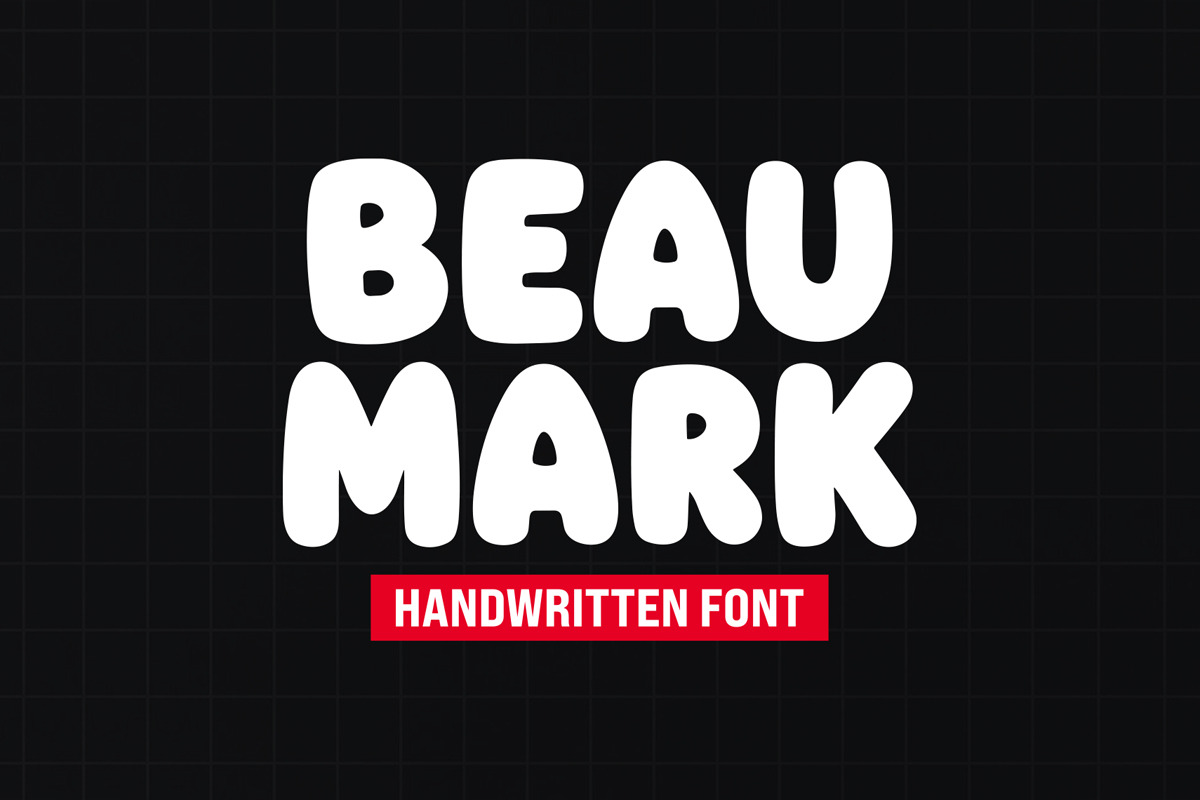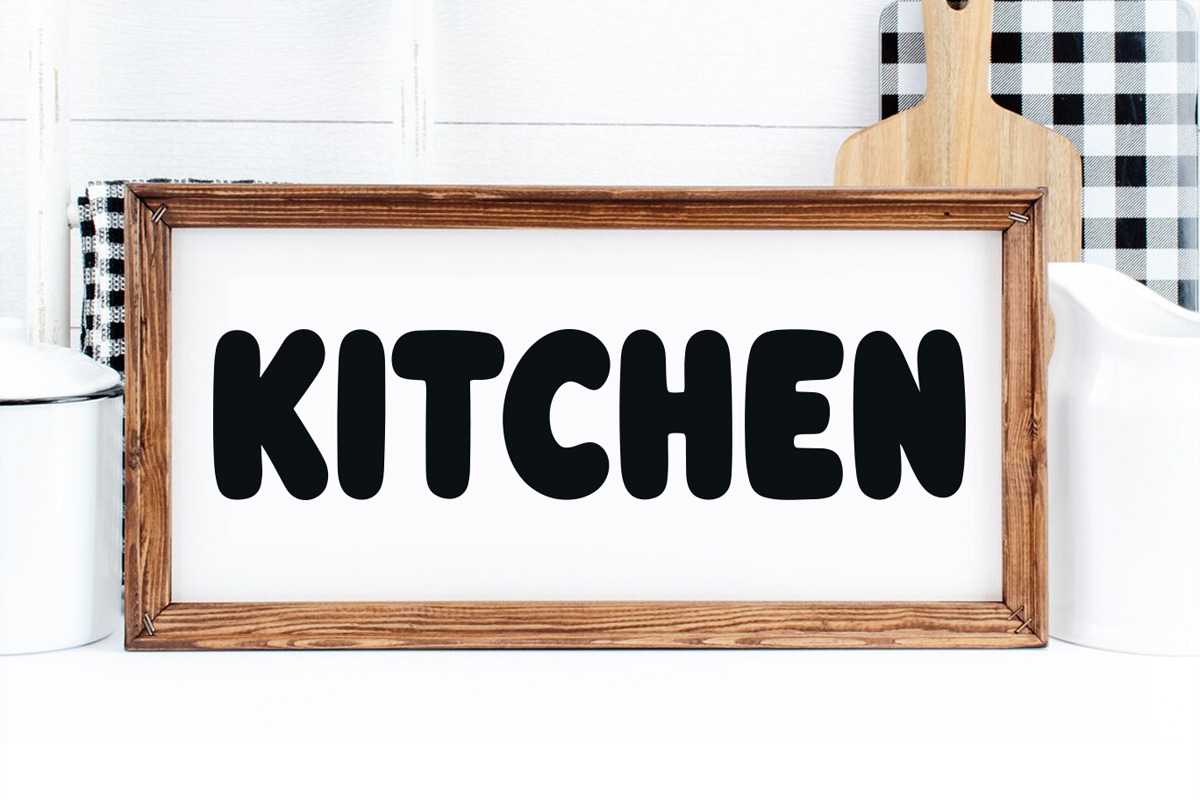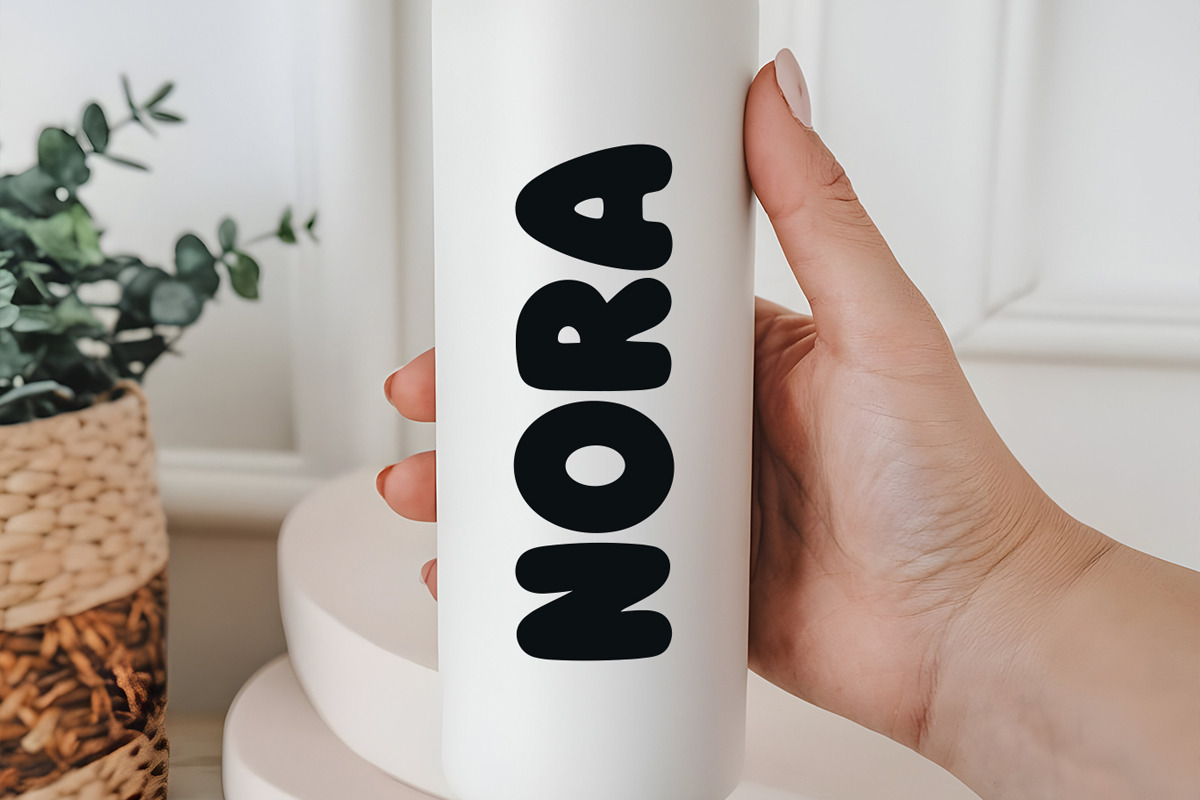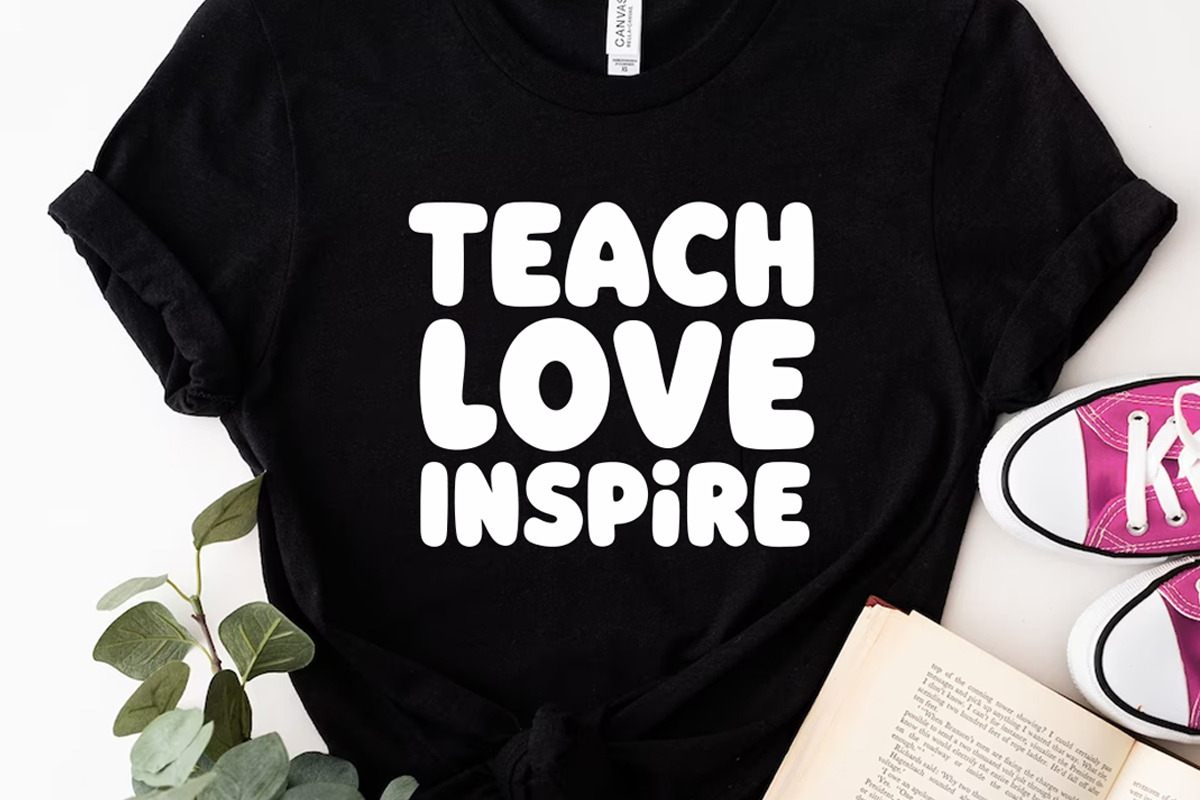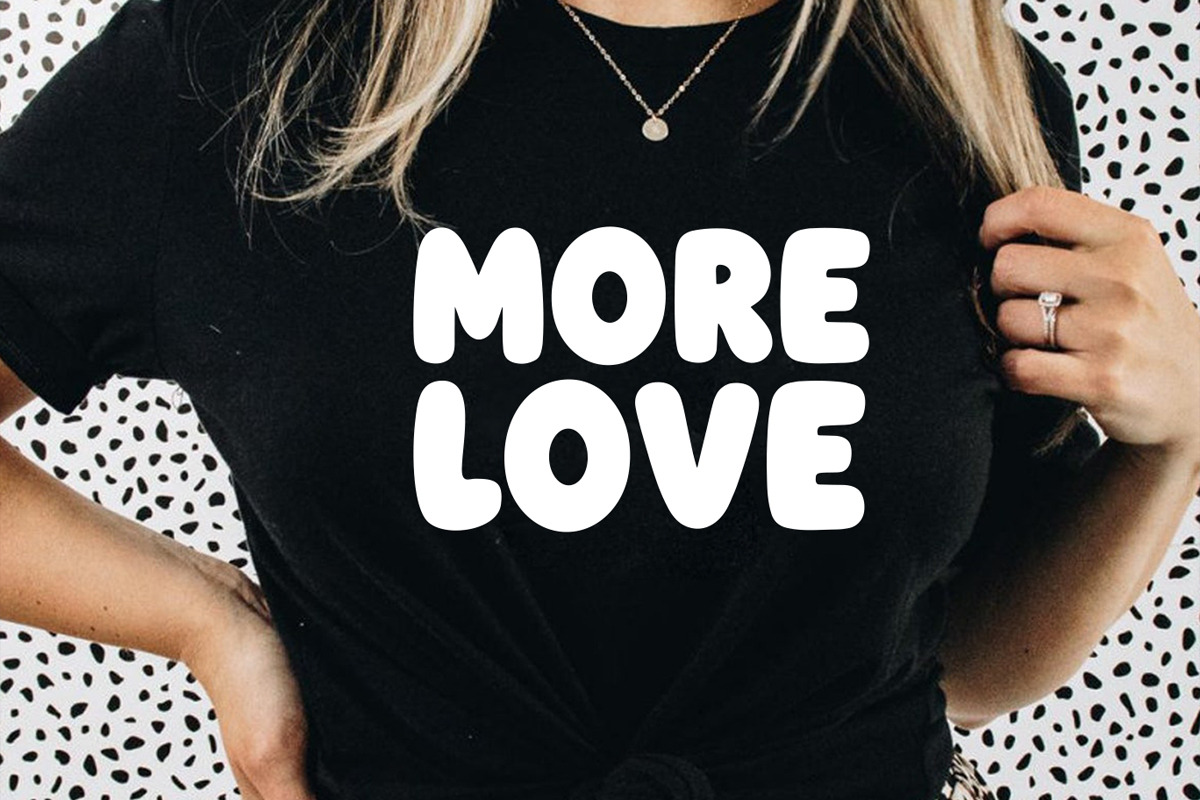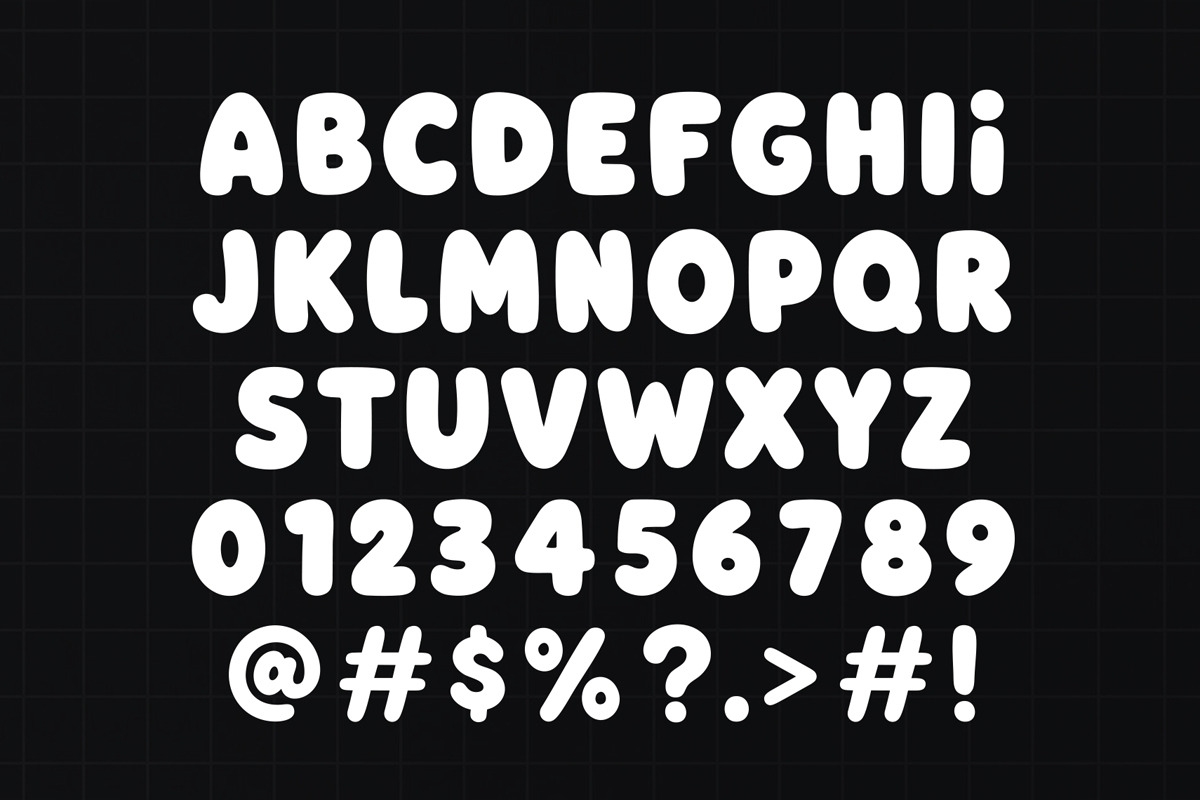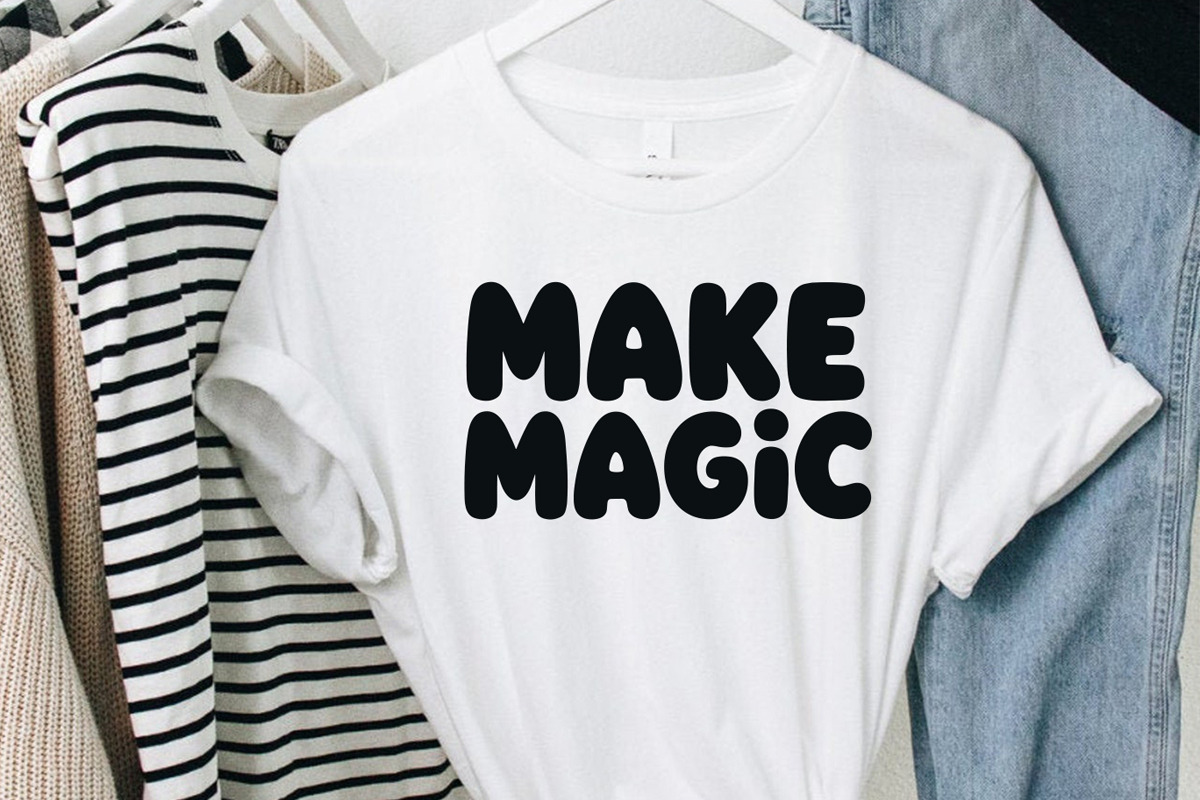
Beau Mark - Handwritten Bubble Font
Beau Mark is a modern, stylish, and flowing handwritten bubble groovy retro font. It has beautiful and well-balanced characters and as a result, it matches a wide pool of designs. It is the best choice for creating eye-catching logos, branding, and quotes. Add it to your most creative ideas, and notice how it makes them come alive!